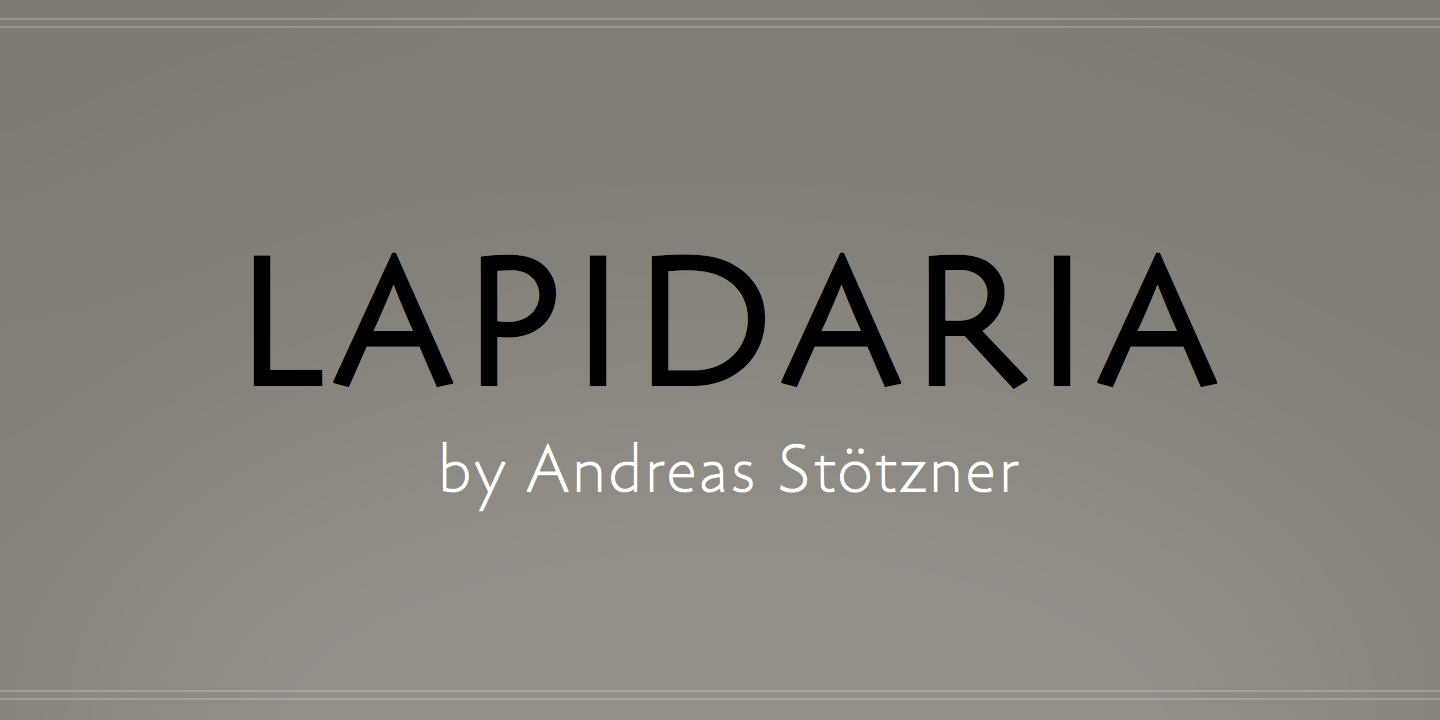
The Lapidaria Font is an excellent choice for designs that demand a classic, monumental, and often ancient or historically inspired aesthetic, reminiscent of carved inscriptions on stone or etched metal. Imagine it gracing the titles of historical documentaries, adding a dignified and timeless feel to museum exhibit displays, or bringing a powerful, enduring vibe to architectural firm branding. It's also perfectly suited for captivating book covers for historical fiction, unique branding for heritage sites, and any project where you want to convey a sense of gravitas, tradition, and enduring legacy. With its often chiseled, strong forms, the Lapidaria Font is ideal for projects that aim for visual prominence and a memorable impression of lasting quality.
What makes the Lapidaria Font truly exciting is its remarkable ability to instantly communicate a sense of history and permanence. It feels as though it has been meticulously carved, giving your designs an immediate sense of weight and authenticity. This font often features sharp serifs, distinctive angles, or a weathered appearance that adds character and depth, setting it apart from more contemporary typefaces. It's perfect for establishing a brand identity that feels established, trustworthy, and artistically profound, ensuring your message is not just seen, but respected and remembered. The Lapidaria Font Free Download offers a fantastic opportunity to infuse your projects with this distinctive spirit.
The Lapidaria Font family is typically designed to offer versatility while maintaining its signature monumental and historical style. While specific family members can vary, you can often expect to find:
Lapidaria Regular
Lapidaria Bold (for added emphasis and powerful headlines)
Lapidaria Italic (if available, for a slanted, more dynamic look)
Lapidaria Rough or Distressed (for an authentic aged or chiseled effect)
Lapidaria Capitals (as many fonts in this style prioritize uppercase for monumental impact)
These variations provide flexibility for different design applications, allowing you to create engaging visual hierarchies and maintain a consistent, powerful aesthetic across all your projects.